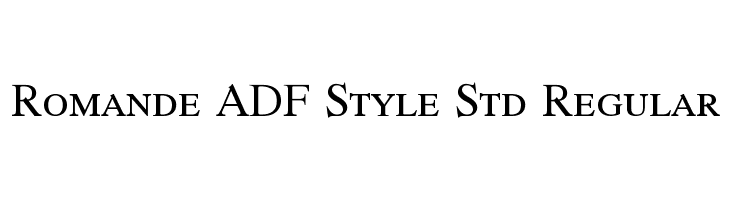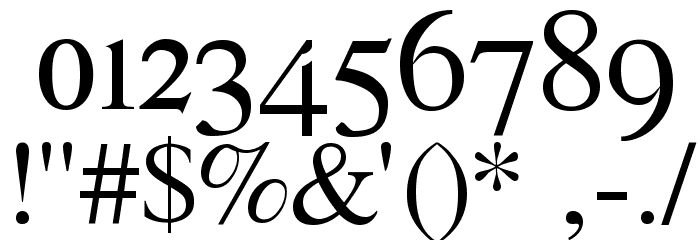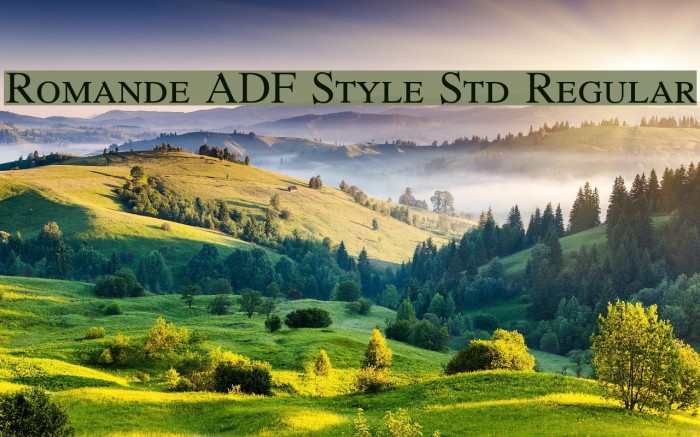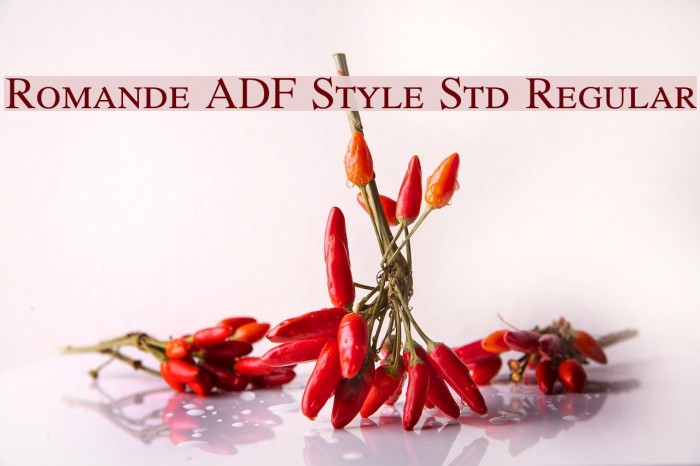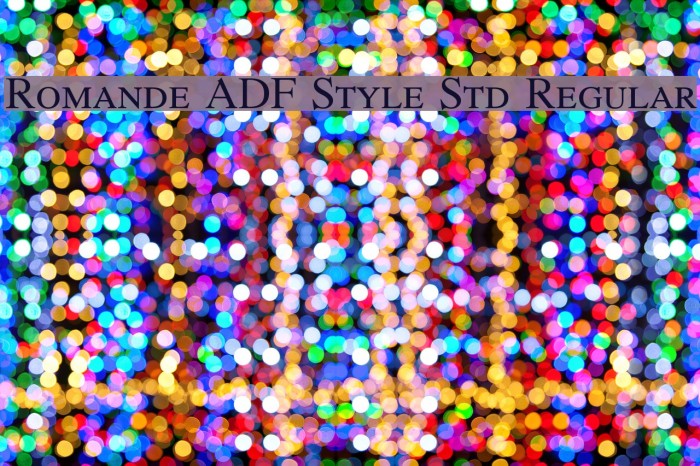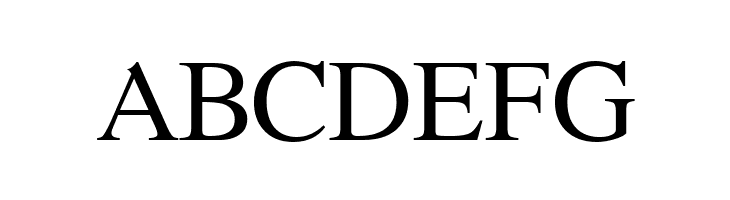
Romande ADF Style Std Regular Font
Romande ADF Style Std Regular Description
This font exhibits a classic serif style with elegant and refined strokes. The characters are well-balanced, featuring a harmonious blend of thick and thin lines that enhance readability while maintaining a sophisticated appearance. The uppercase letters are bold and commanding, while the lowercase letters offer a smooth and flowing design. The numerals are distinct and clear, making them suitable for various applications. Special characters are crafted with precision, adding to the font's versatility. Overall, this font exudes a timeless charm, making it ideal for formal and professional use.
A classic serif font with elegant, refined strokes and balanced character design from Uncategorized fonts.
- Proposed Projects: Ideal for book publishing, formal invitations, corporate branding, and editorial design.
- Overall Style: Classic